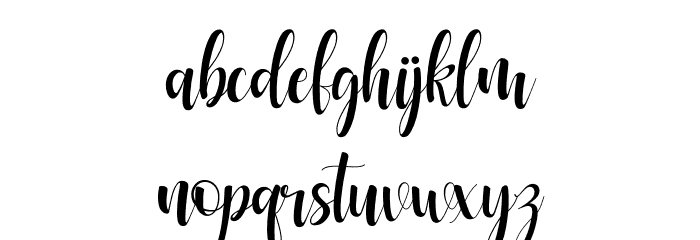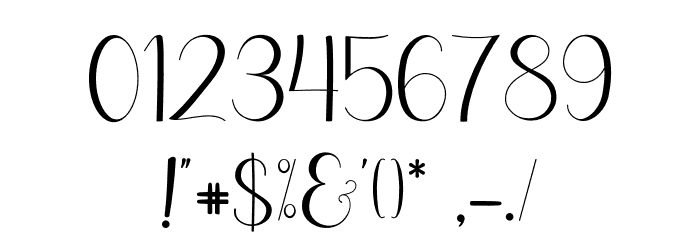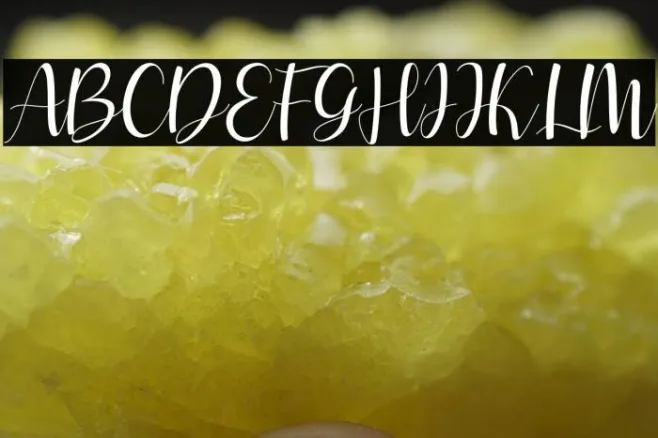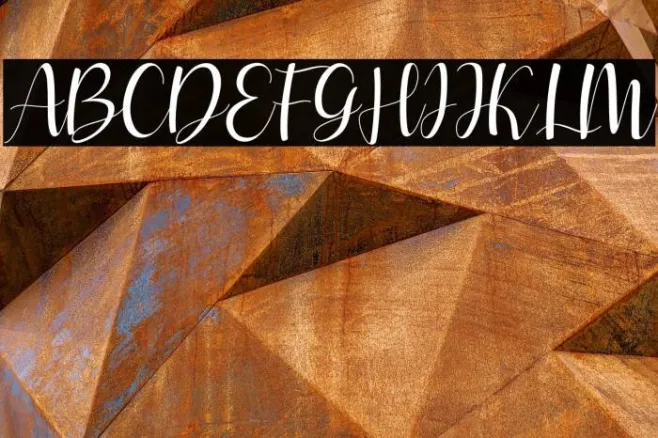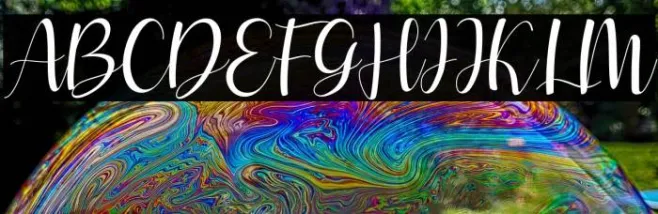
amsterdune Font
This font features an elegant and flowing script style, characterized by its smooth, cursive letterforms that exude a sense of sophistication and grace. The uppercase letters are particularly ornate, with sweeping curves and flourishes that add a decorative touch. The lowercase letters maintain a consistent flow, enhancing readability while retaining an artistic flair. The numerals are uniquely styled, combining elements of both script and modern design, making them stand out. Special characters are thoughtfully integrated, complementing the overall aesthetic. This font is ideal for projects that require a touch of elegance and creativity.
An elegant, flowing script font with ornate uppercase and smooth lowercase letters.
- Font: amsterdune
- Proposed Projects: Ideal for wedding invitations, branding, greeting cards, and elegant packaging designs.
- Category: Script
- Overall Style: Elegant, Decorative
- Use Case: Logos, Invitations, Decorative text